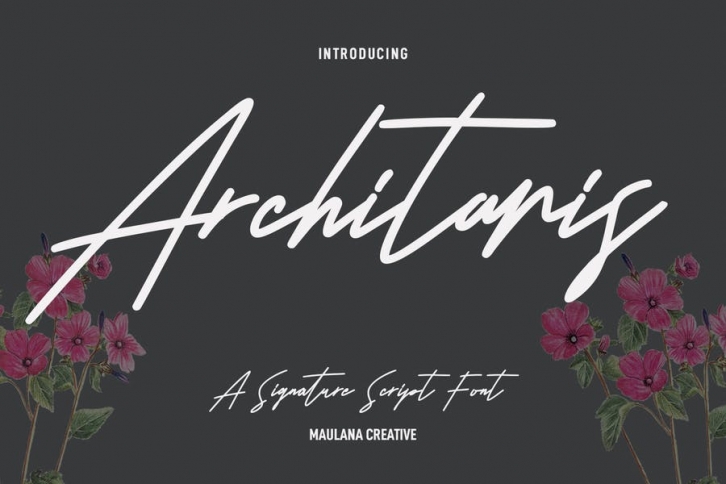
Architaris is a fancy handwritten script font. With medium contrast stroke, fun character with a bit of ligatures and alternates. To give you an extra creative work. Architaris font support multilingual more than 100+ language. This font is good for logo design, Social media, Movie Titles, Books Titles, a short text even a long text letter and good for your secondary text font with sans or serif. Make a stunning work with Architaris font.